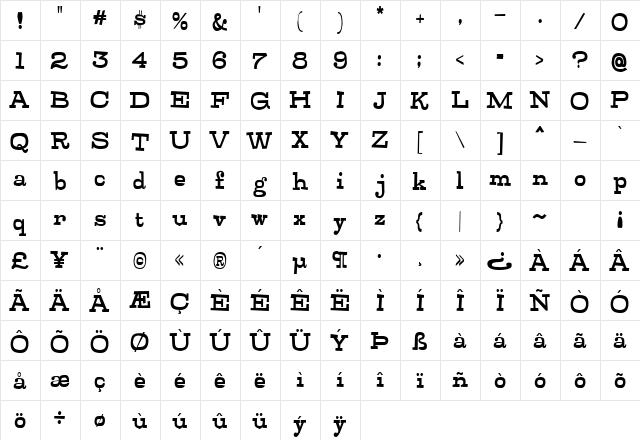
Zudsash Regular
Design Context for Zudsash Typeface
Zudsash takes a measured approach to typography — its balanced proportions and neutral character make it a reliable workhorse for both digital and print work.